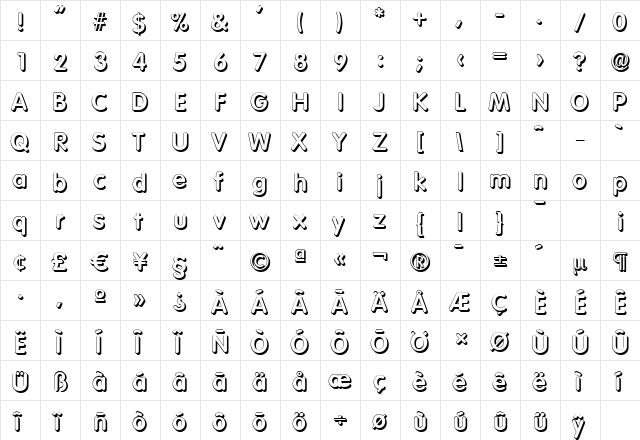
VolkswagenShadow Bold
Design Context for VolkswagenShadow Typeface
VolkswagenShadow brings ornamental detail and strong personality to headlines and identities, where visual impact matters more than quiet functionality. The heavy weight commands attention and anchors typographic hierarchies.
Font Pairing: Pair with a clean neutral sans-serif for body copy to let VolkswagenShadow's character lead without overwhelming the composition.
Pro Tip: Treat VolkswagenShadow as the centrepiece of your typographic hierarchy. One strong heading set in a decorative face can carry an entire layout.